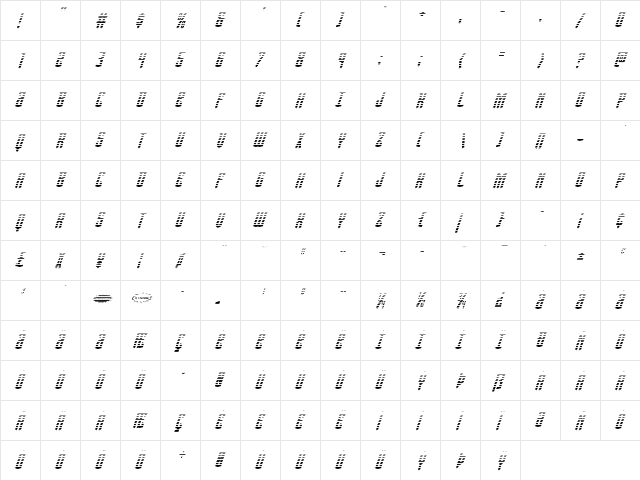
Viceroy of Deacons Gradient Italic Italic
Design Context for Viceroy of Deacons Gradient Italic Typeface
Viceroy of Deacons Gradient Italic takes a measured approach to typography — its balanced proportions and neutral character make it a reliable workhorse for both digital and print work. The dynamic lean of this cut emphasises speed and emphasis in any layout.